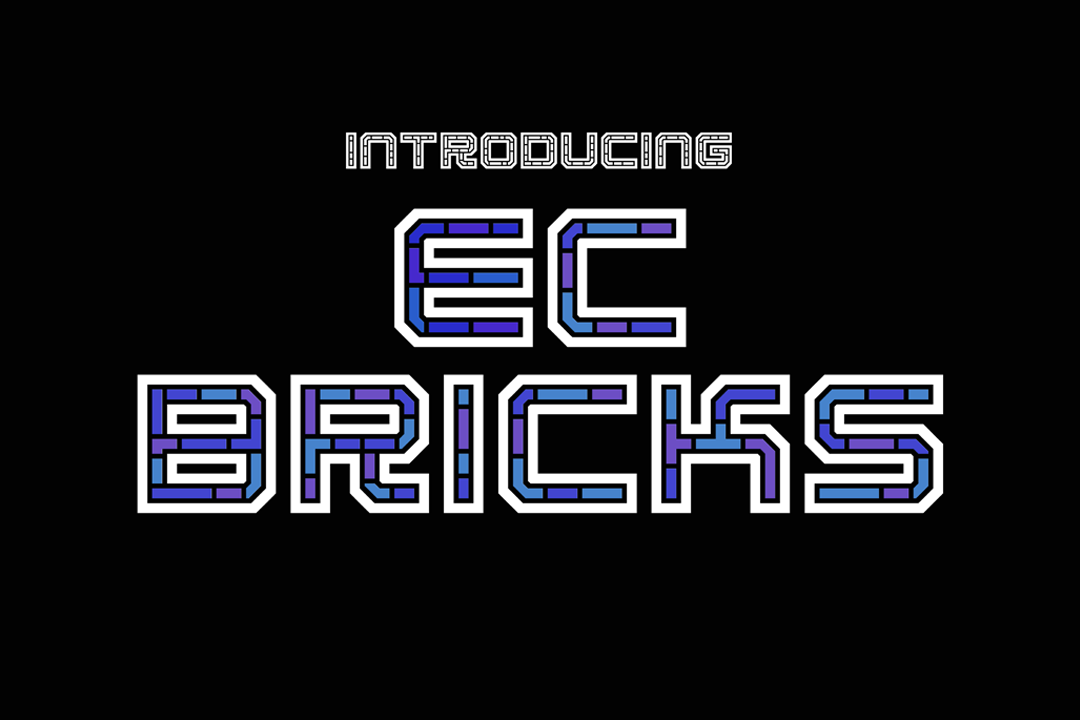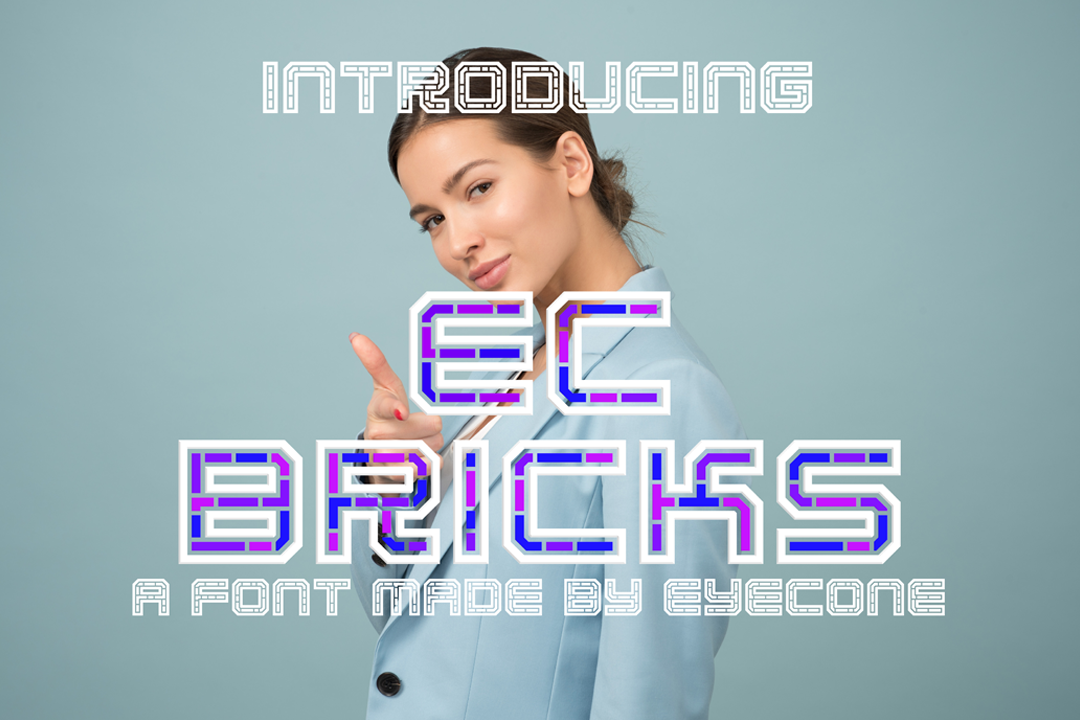
Created By EyeCone
EC Bricks
EC Bricks  is a 5 layered font  that will make your creations more colorful.
• bold
• bold italic
• regular
• regular italic
• thin
• thin italic
• hollow
• hollow italic
• all in one